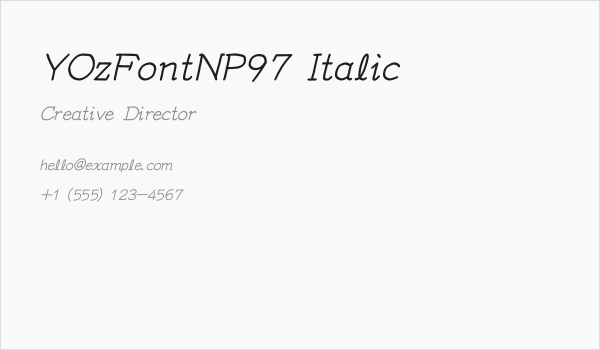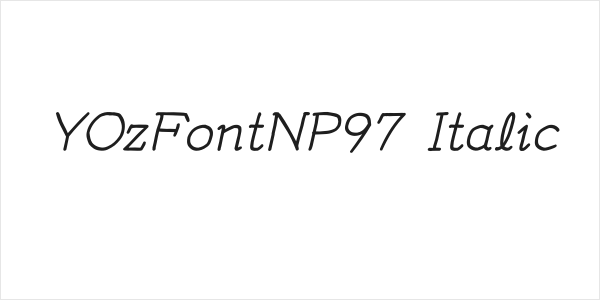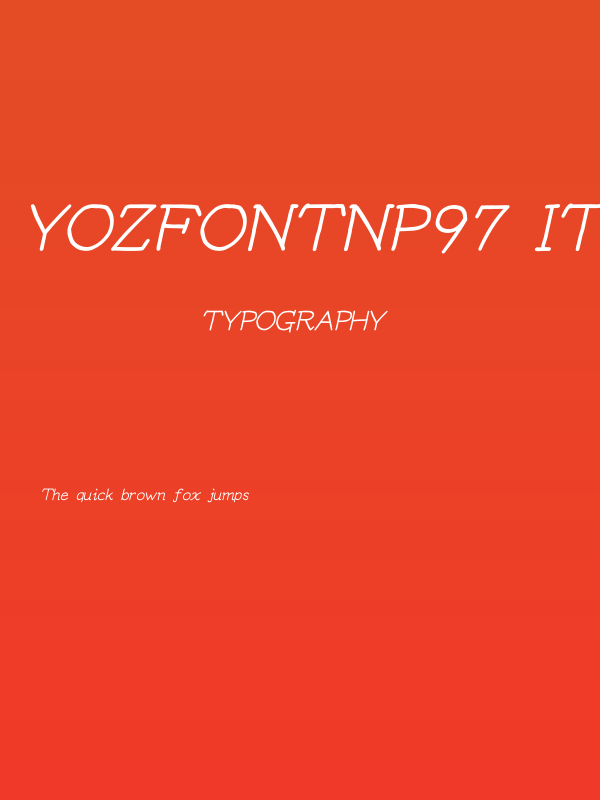
YOzFontNP97 Italic Font
YOzFontNP97 Italic Description
This font features a classic italic style with a smooth, flowing appearance. The characters are slightly slanted, giving them a dynamic and elegant look. The uppercase letters are well-proportioned, with a consistent height and width, while the lowercase letters maintain a harmonious balance. The numerals are clear and easy to read, complementing the overall design. Special characters are included, adding versatility to the font. The strokes are medium in thickness, providing a moderate contrast that enhances readability without compromising the aesthetic appeal.
Overall StyleClassic
Use CaseLogos, Invitations, Headlines
Proposed ProjectsIdeal for projects requiring a touch of elegance, such as wedding invitations, formal event programs, or luxury brand logos.